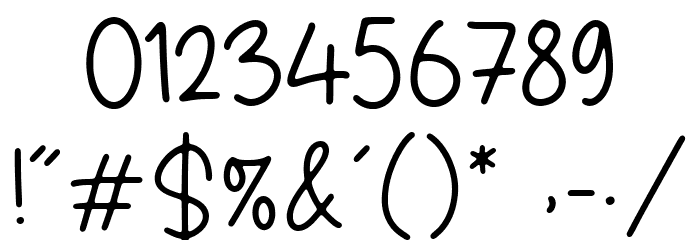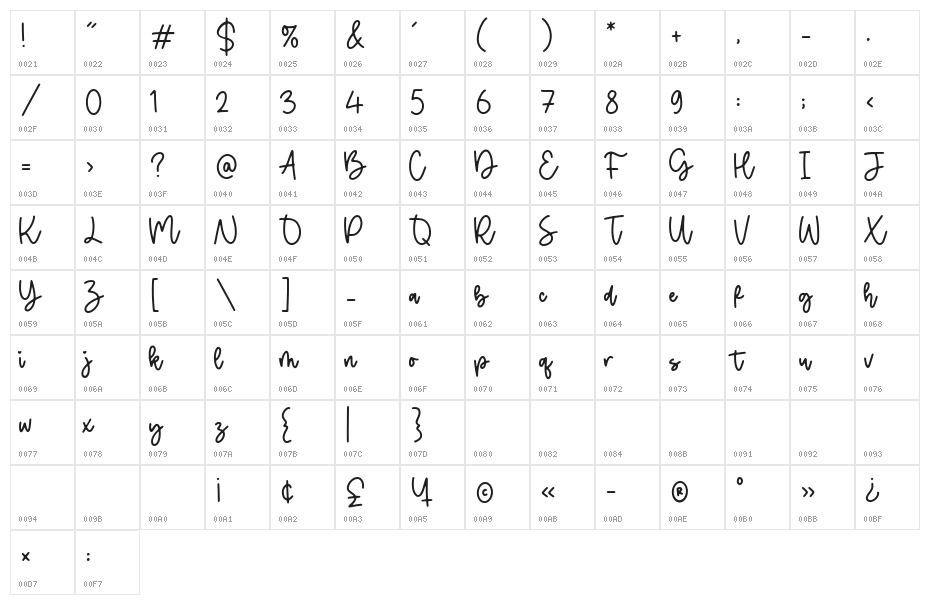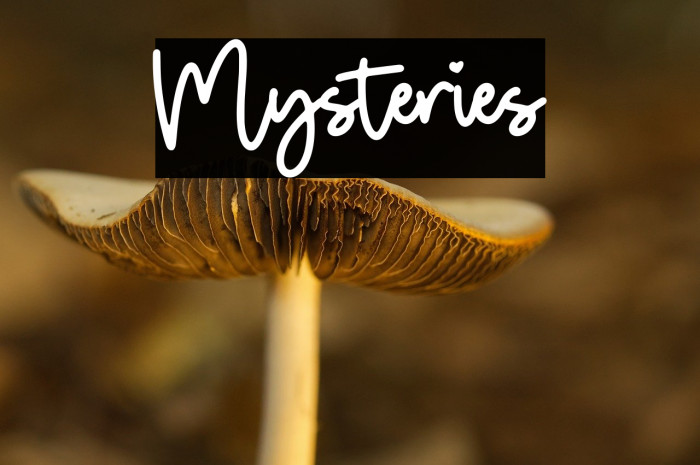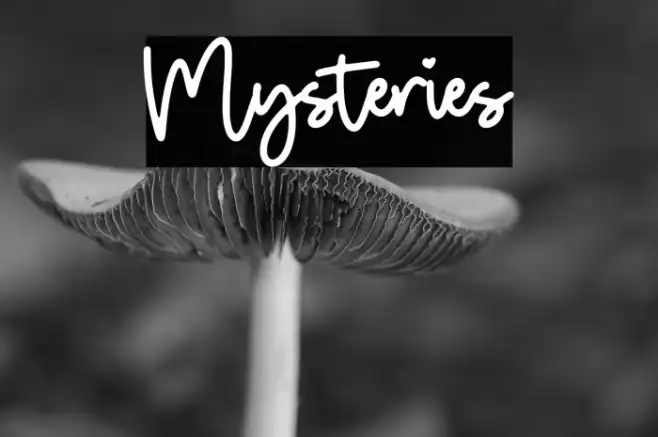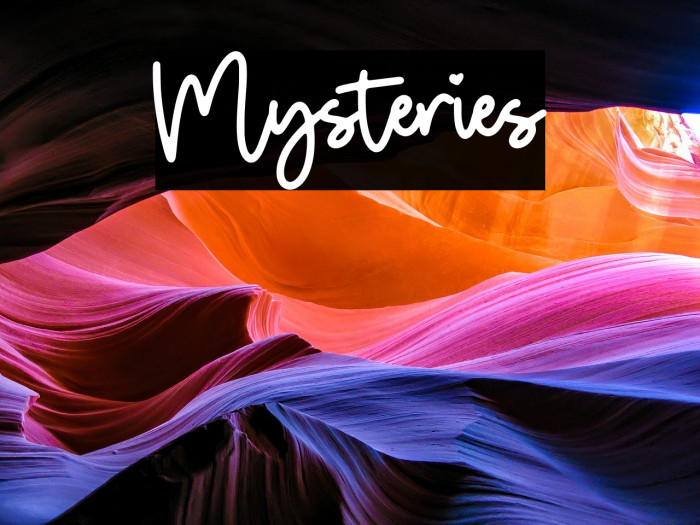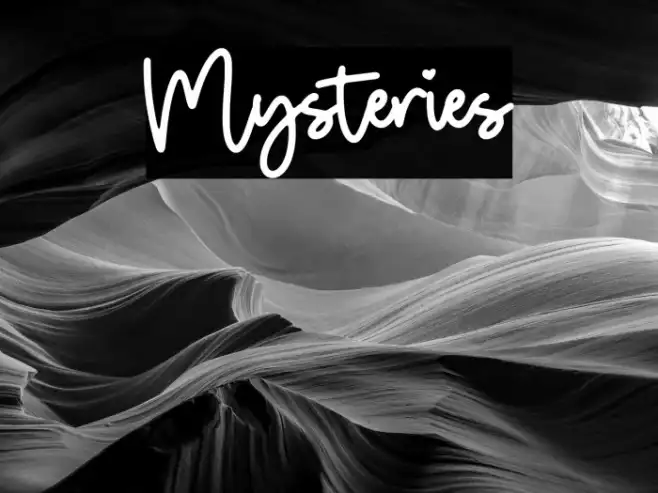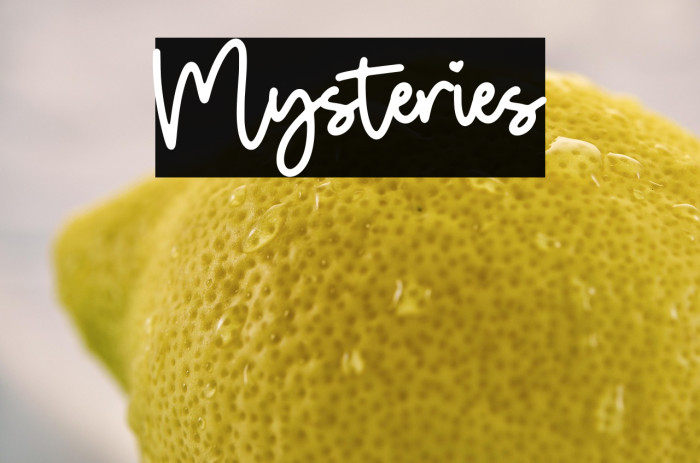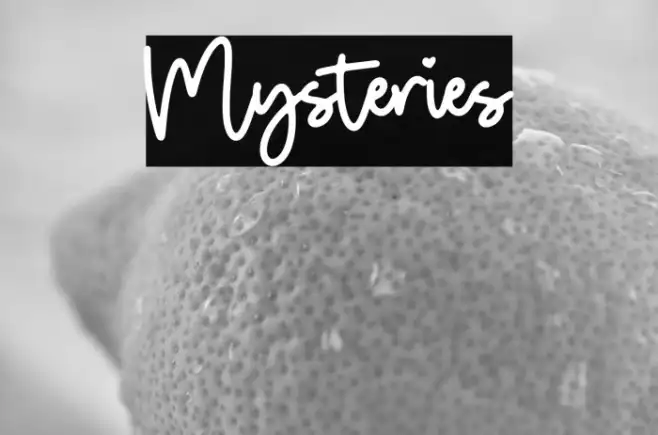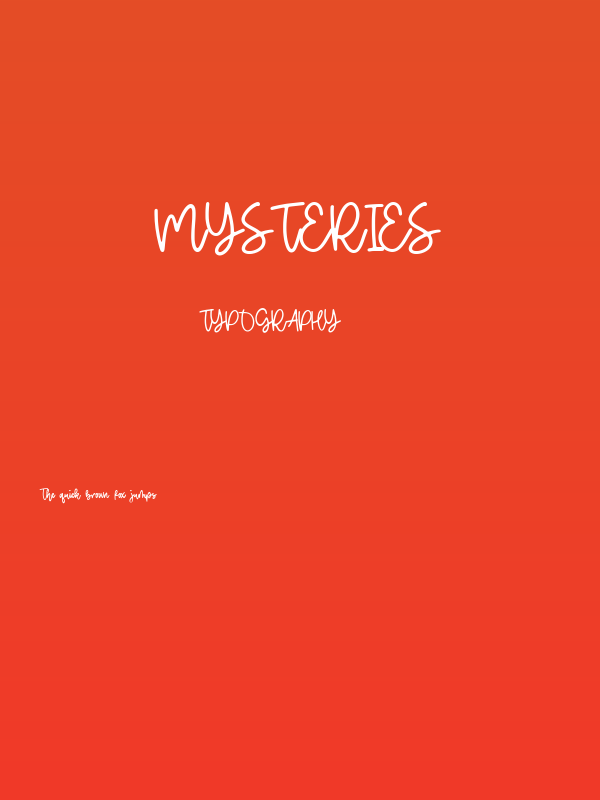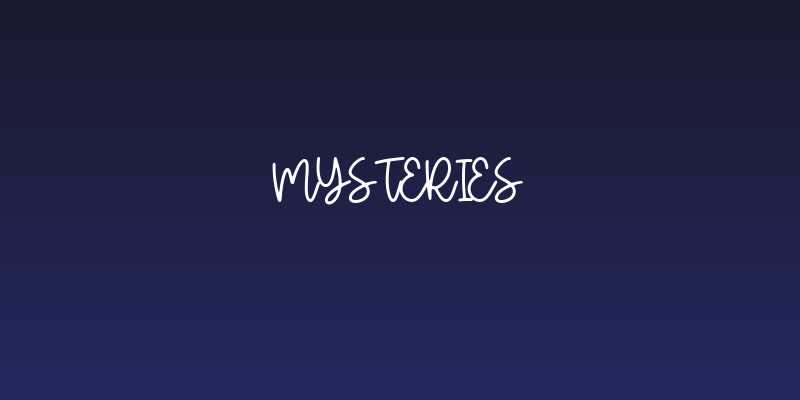
Mysteries Font
Mysteries Description
This font features a playful and casual handwritten style, characterized by its fluid and connected strokes. The uppercase letters are tall and slightly narrow, while the lowercase letters maintain a consistent flow, giving the text a lively and informal appearance. The numbers are clear and legible, matching the overall style of the alphabet. Special characters are included, maintaining the same whimsical and approachable design. This font is perfect for projects that require a personal touch, such as invitations, greeting cards, or social media graphics.
| Use Case | Headlines, Informal text, Personal projects |
| Proposed Projects | Ideal for invitations, greeting cards, social media graphics, and personal branding. |